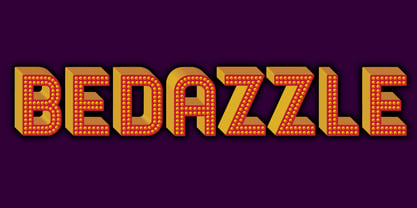
Bedazzle
by Pelavin Fonts
About Bedazzle Font Family
With a delicious twinkling in its eye, Bedazzle evokes a theatrical vibe. Filled with a pattern of glowing lights, it offers a festive journey for the eye as well as a tactile ambiance. Two fonts, an ornamented bright plus a solid version provide ample resources to create a variety of inlined, outlined, shadowed and multi-colored displays. Add in Illustrator’s 3D feature to take things beyond the mere surface of the page.
About Pelavin Fonts
Daniel Pelavin is in his fifth decade of transforming and melding the images and cultural ephemera of our times into cogent and compelling messages for publishing, advertising and communication design. Working his way up through the ranks in the legendary art studios of Detroit, in the halcyon days of the early 1970's. Pelavin apprenticed and worked with artists from the entire gamut of graphic arts professionals, including, decorative, fashion, product and technical illustrators as well as letterers, typographers and designers. A fascination with letterforms from an early age has led him to create fonts, influenced by many different historical periods.